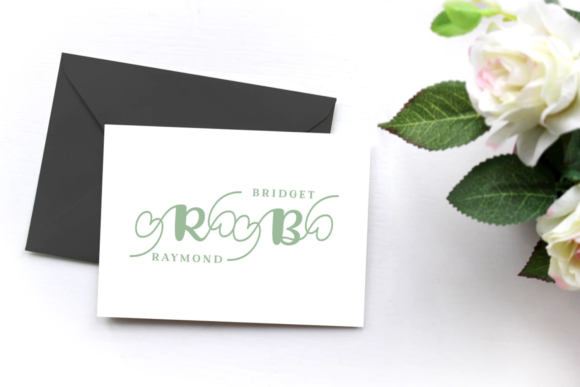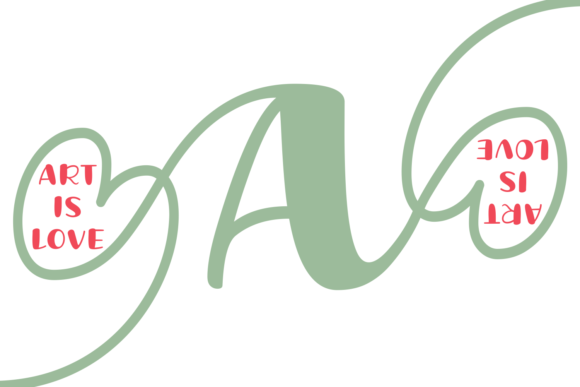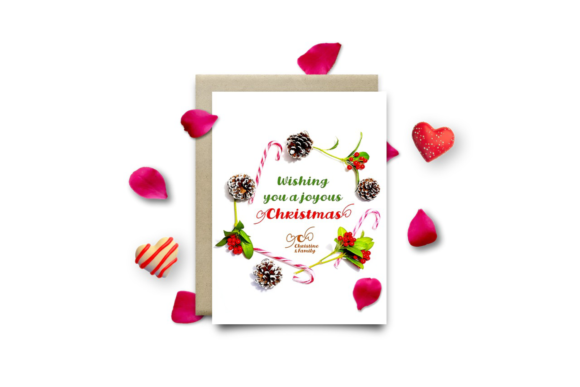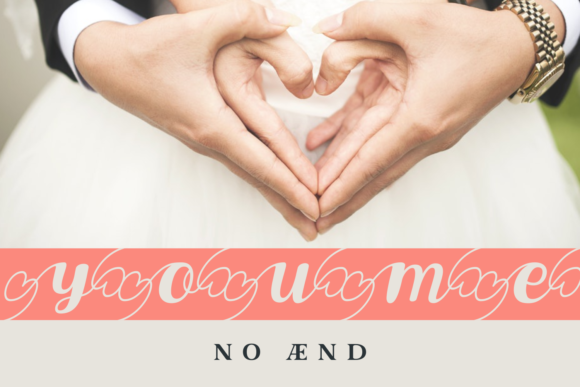
Lovina October Five Font
About Lovina October Five Font
The Lovina October Five is a lovely script font. It has an elegant feel which will show trough in your designs when using it. Its two styles and amazing swashes make the Lovina October Five a truly unique font, suitable for multiple design purposes.